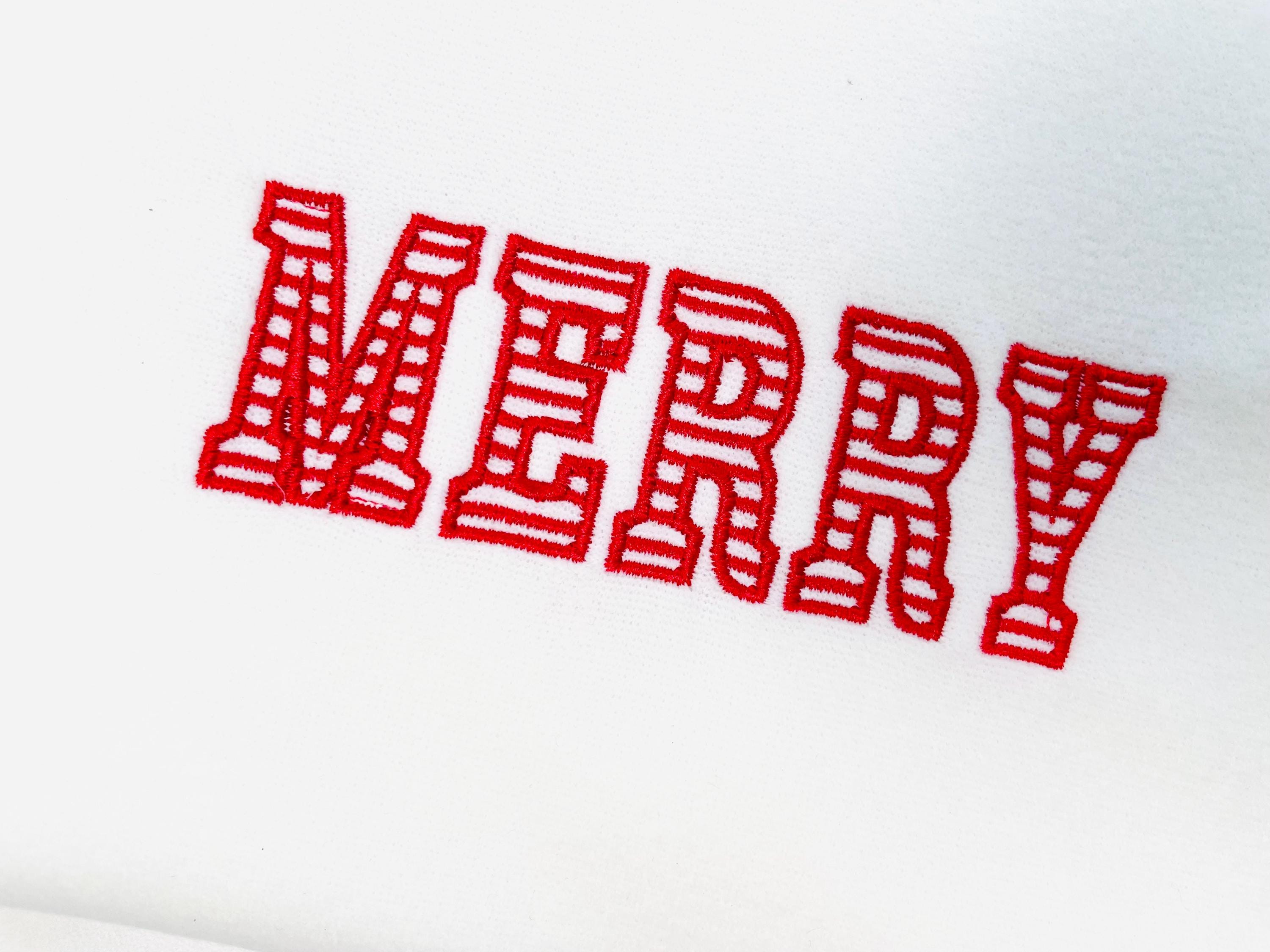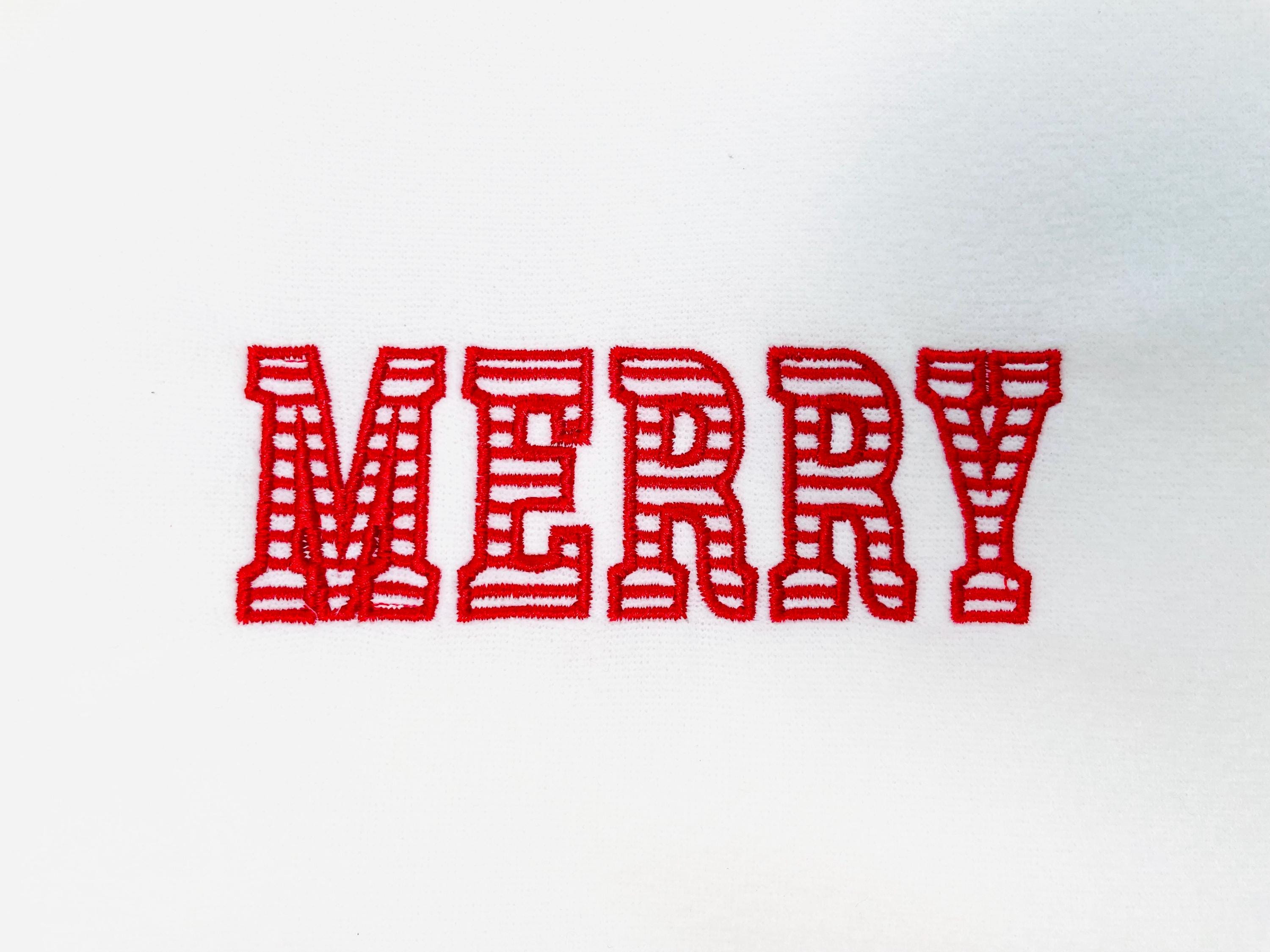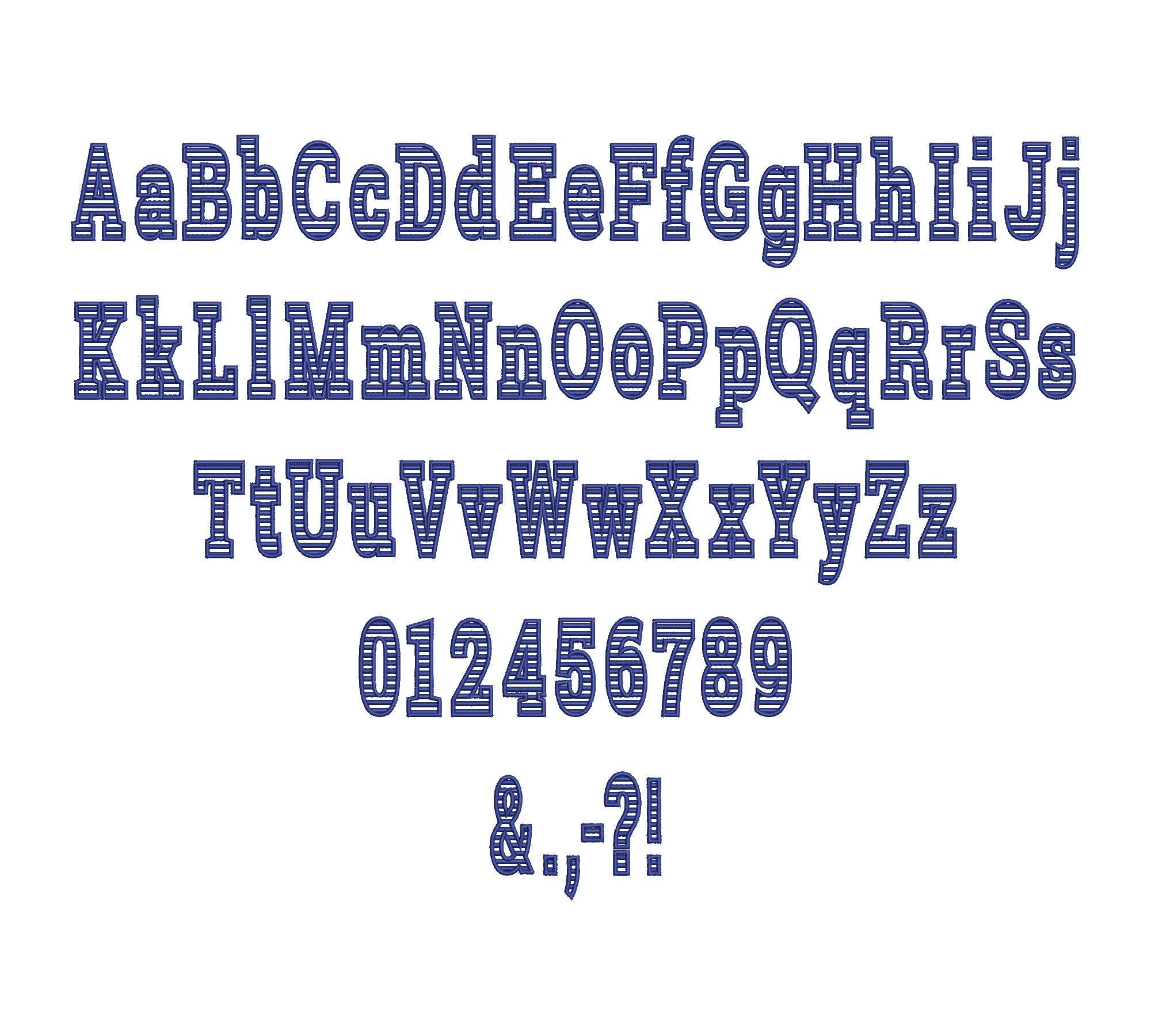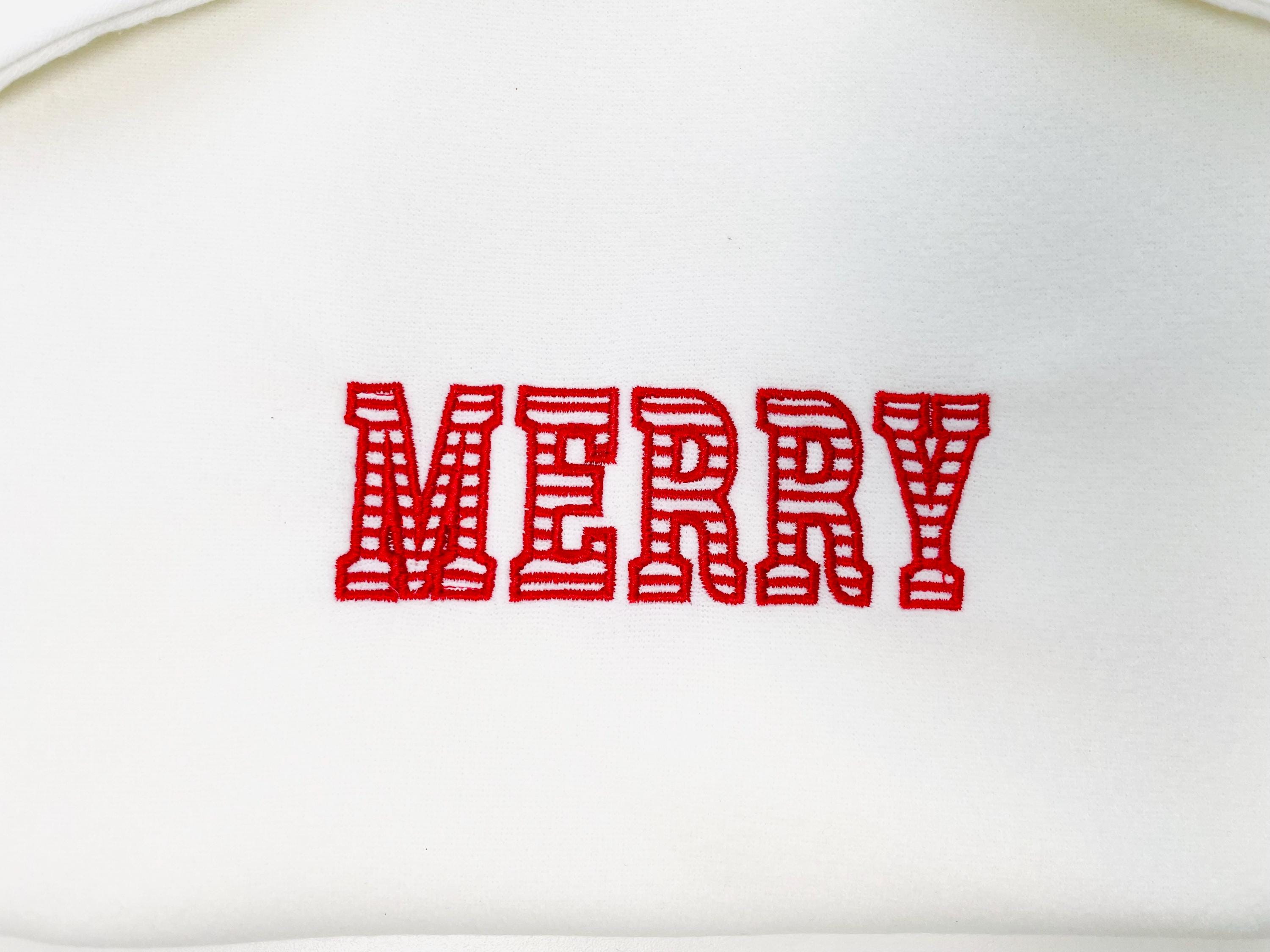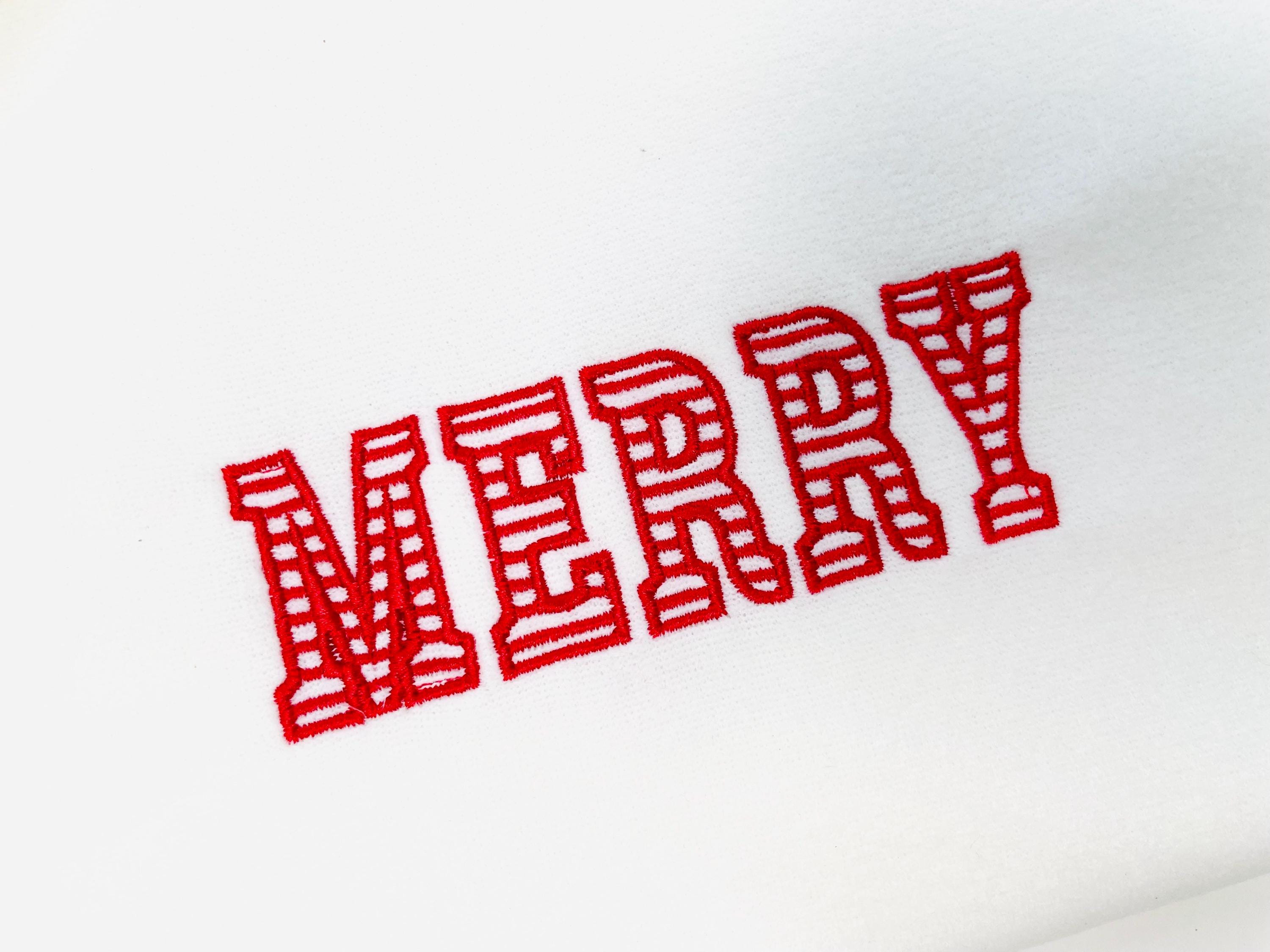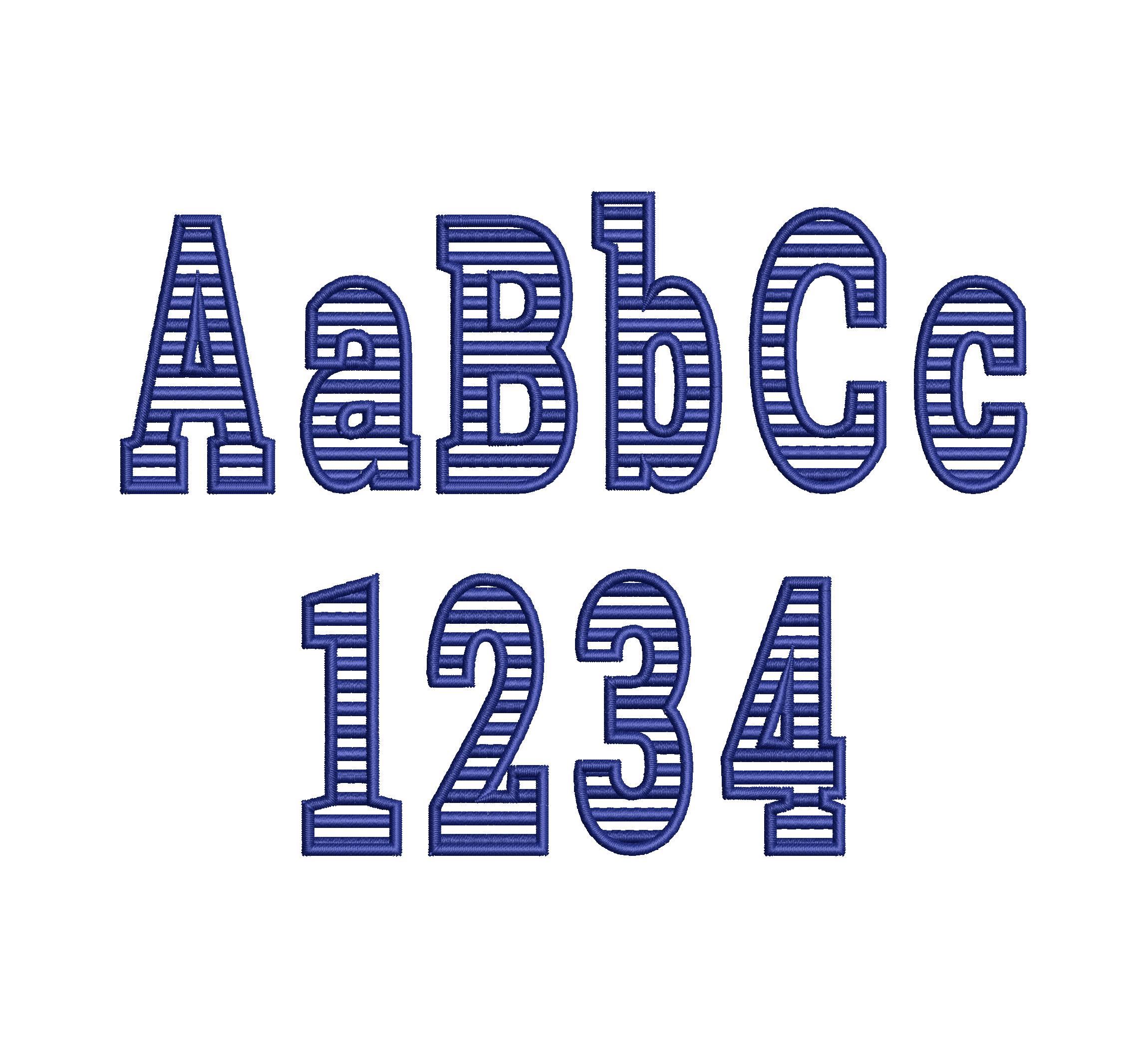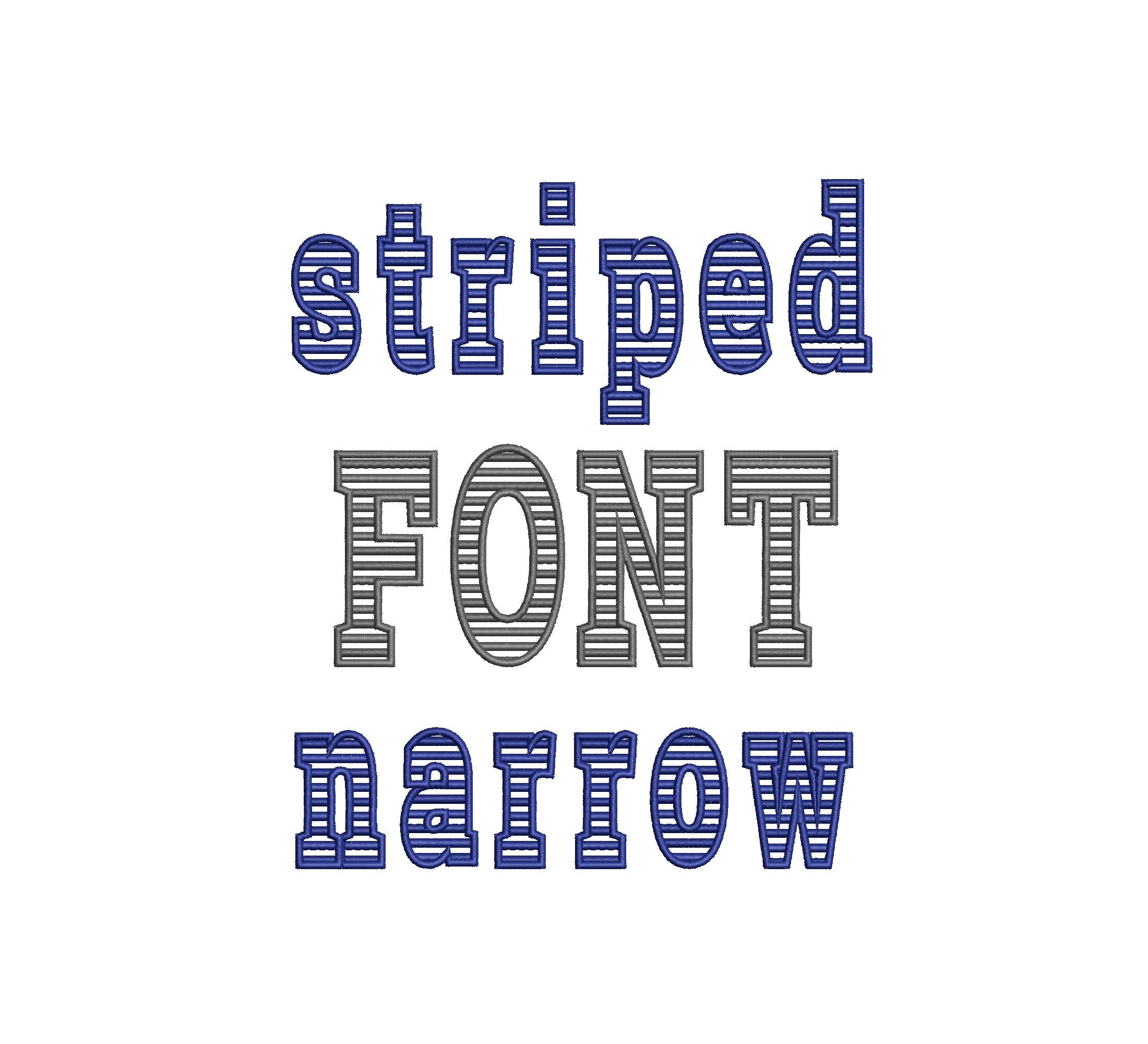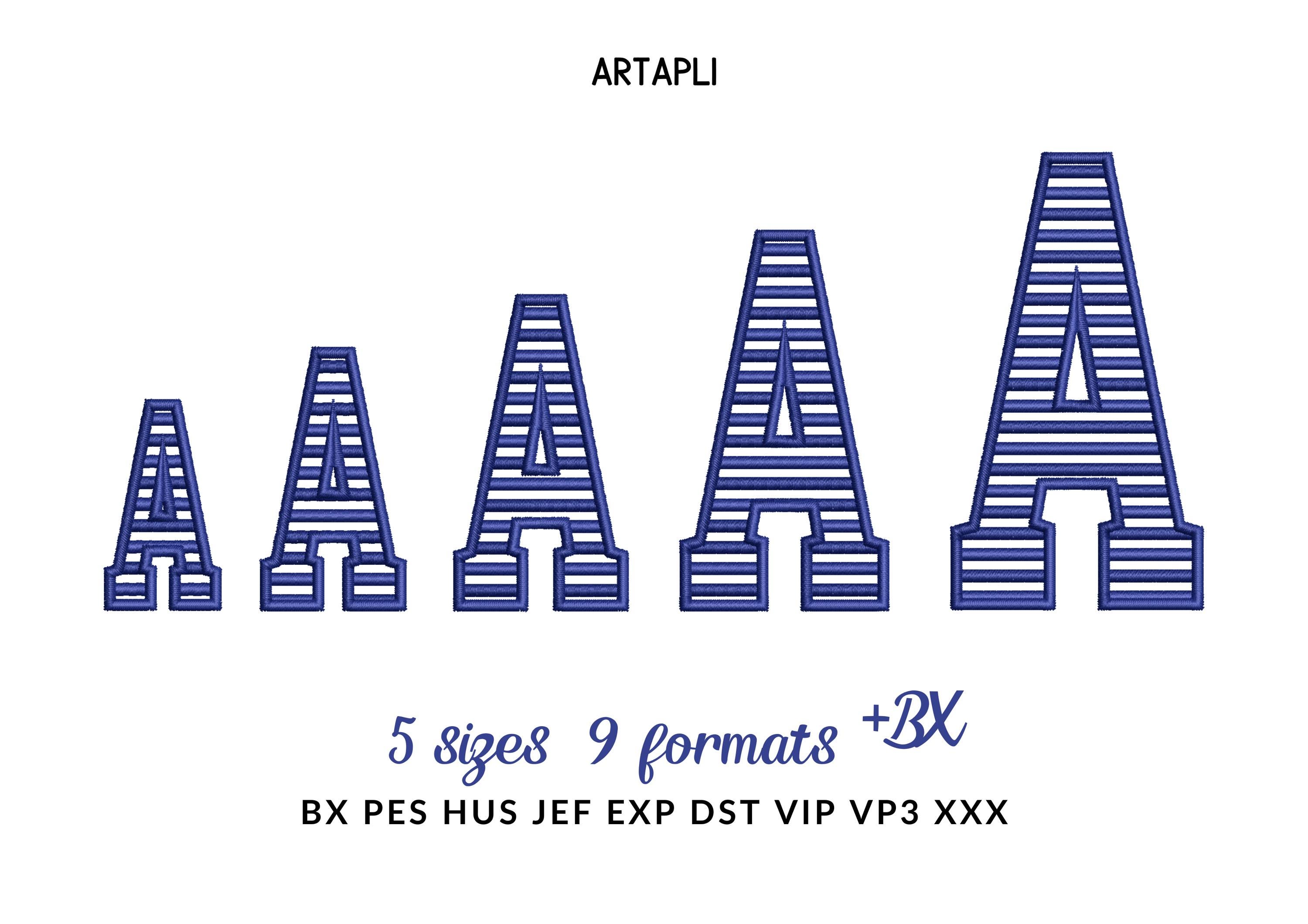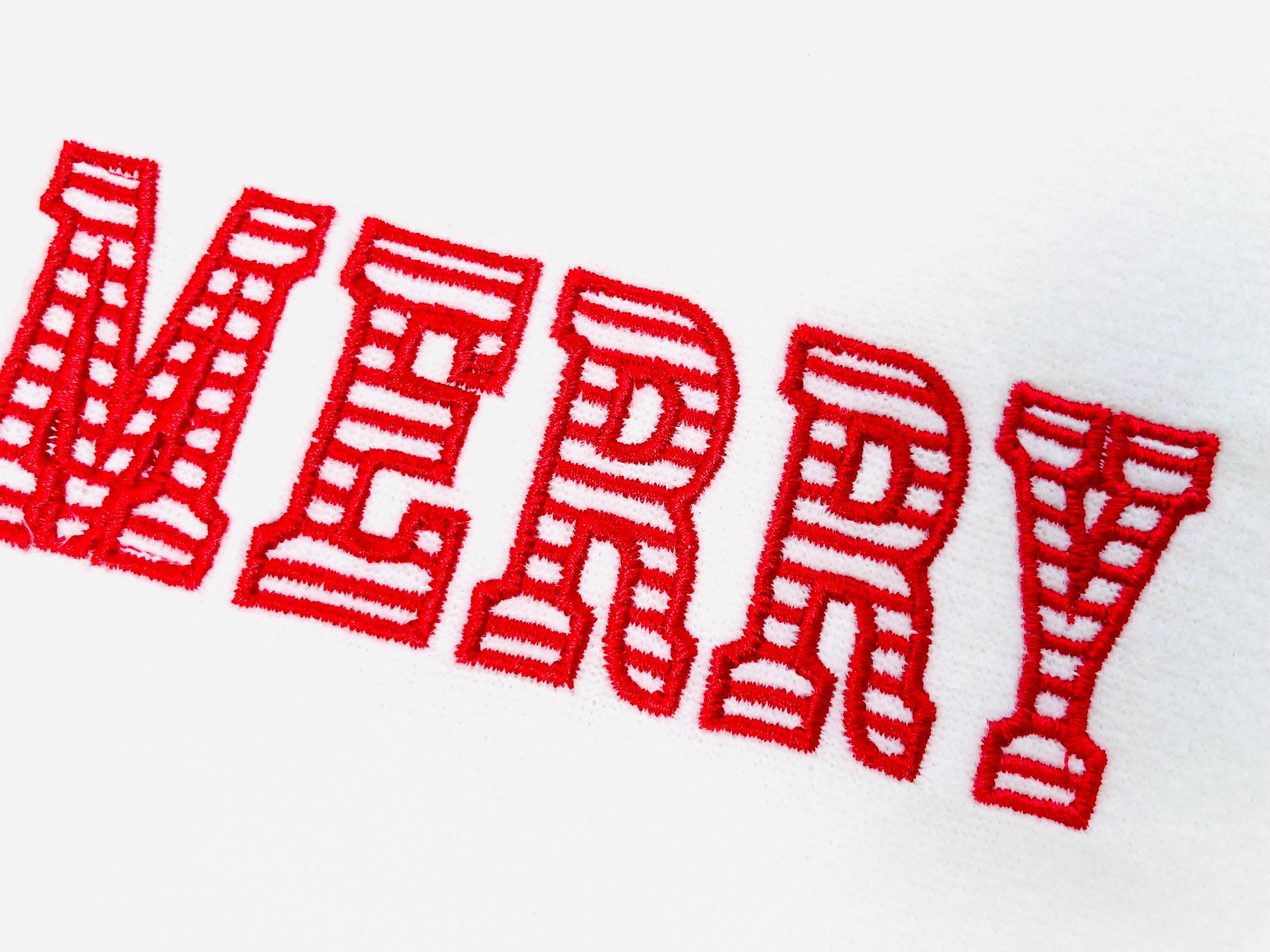
Block Striped Narrow Font transparent satin stitch alphabet monogram machine embroidery designs assorted sizes 1.6 up to 3.5 inch, BX
Entire alphabet A-Z uppercase and lowercase letters, numbers 0-9, and punctuation.
This is a transparent font, and the background fabric looks through. Stunning effect!